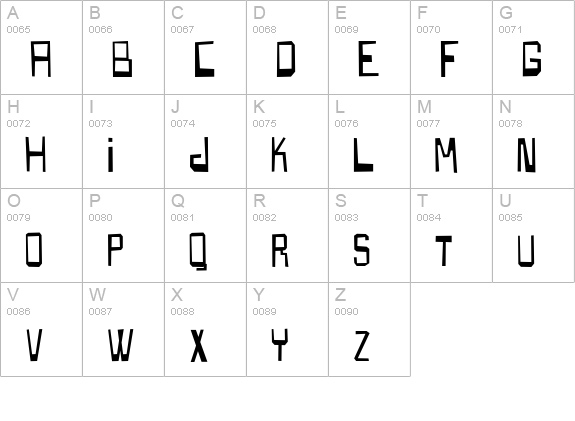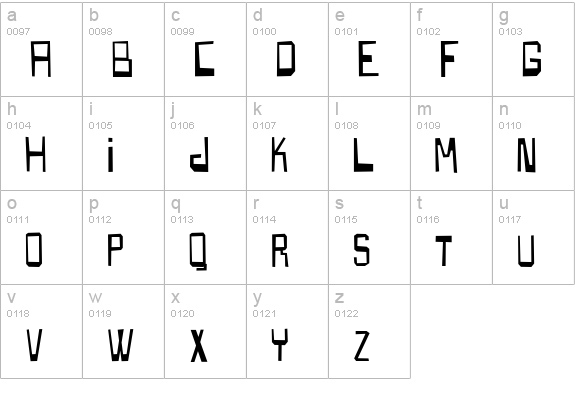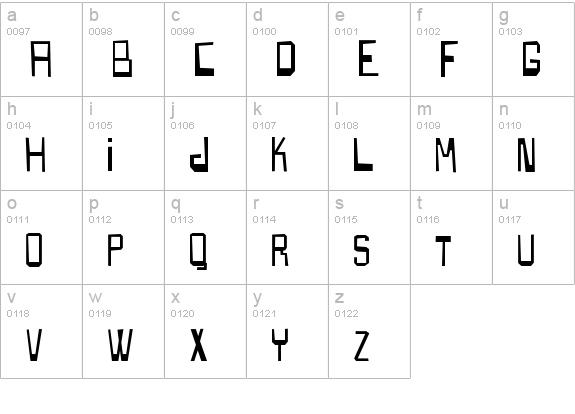
Boxspring Font Details
Boxspring font is a sleek and modern typeface that combines elegance with functionality. With its clean lines and sharp edges, this font is perfect for a wide range of design projects, from branding to editorial layouts. The bold and eye-catching characters of Boxspring font make it stand out from the crowd, while its versatility allows it to be used in both print and digital media. And the best part? Boxspring font is completely free to download at FontsMarket.com. So whether you're a professional designer looking for a new addition to your font collection or a hobbyist looking to spice up your personal projects, Boxspring font has got you covered. Download it today and see the impact it can make on your next design endeavor.